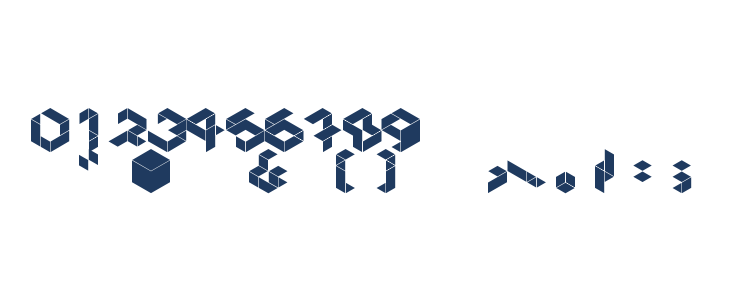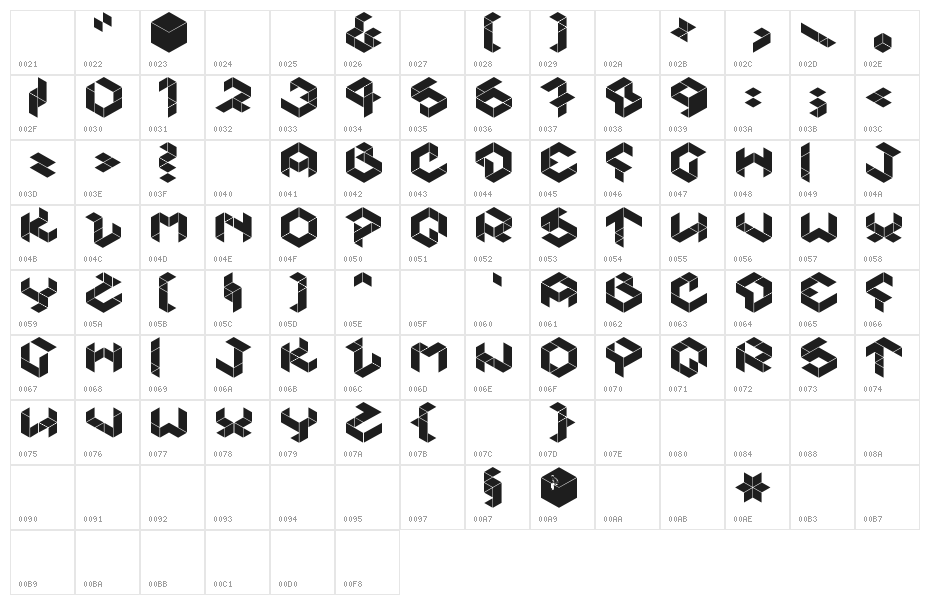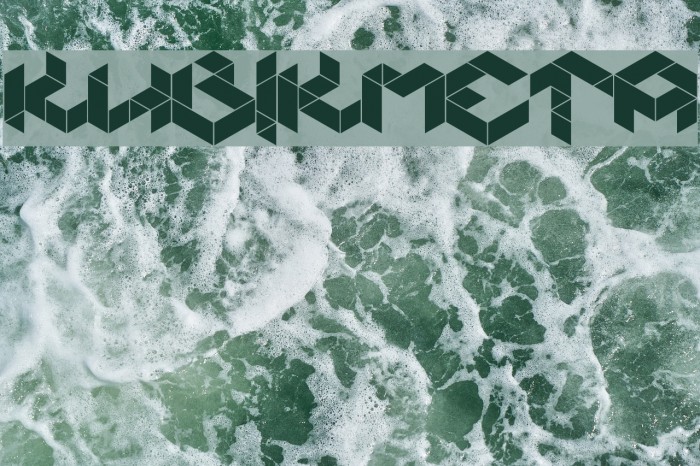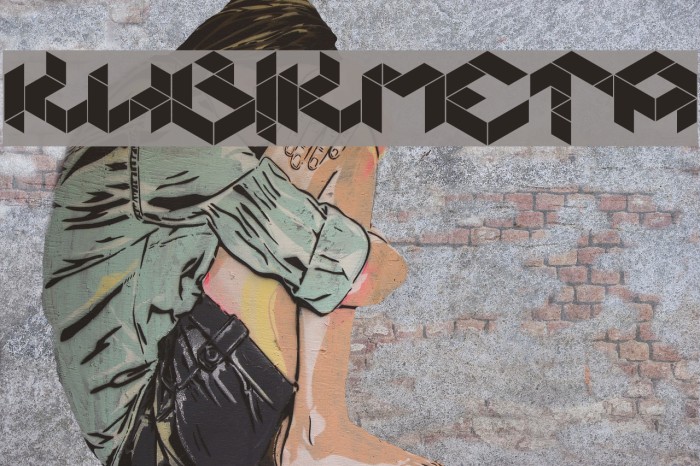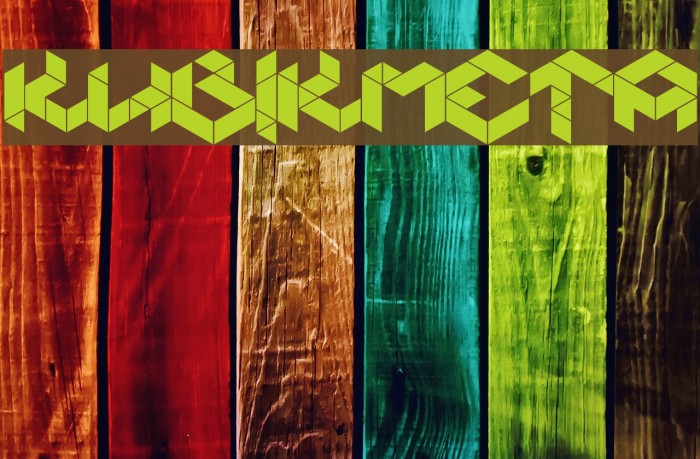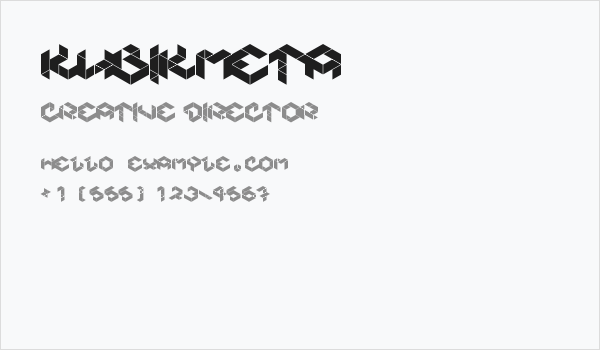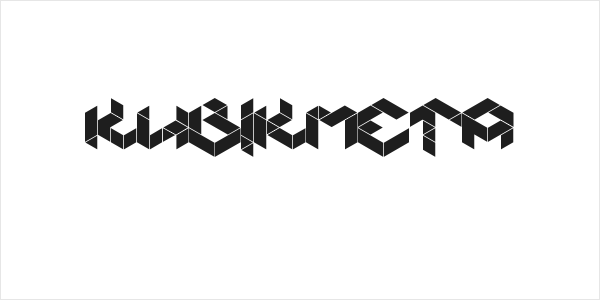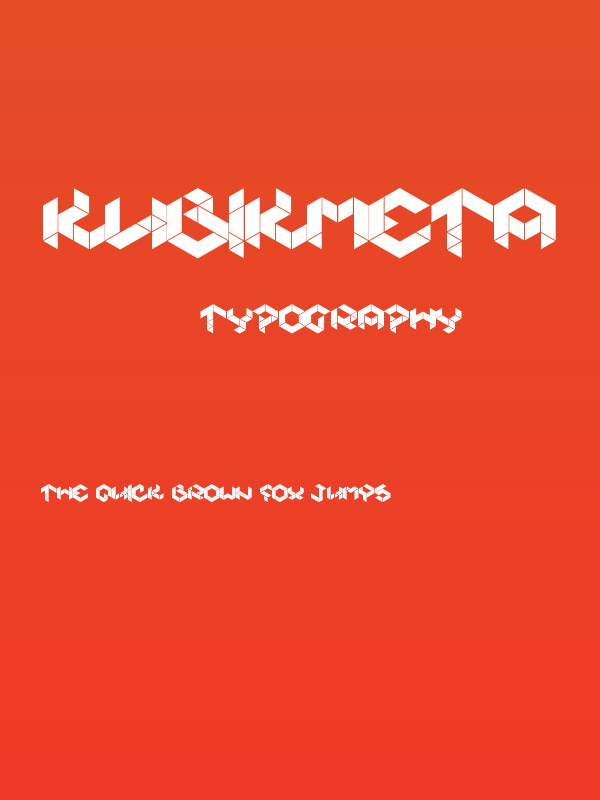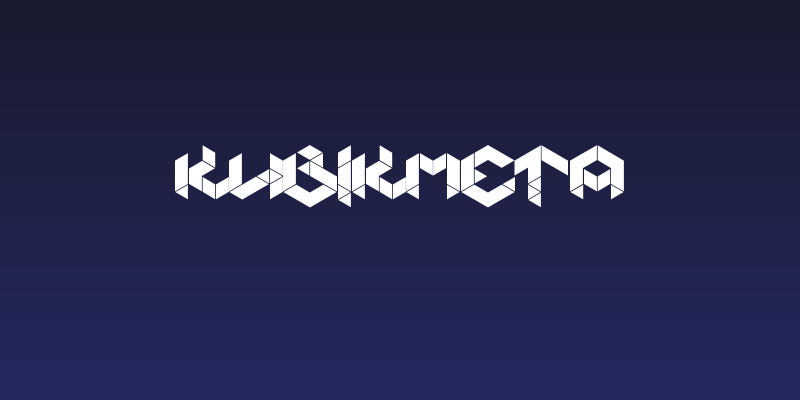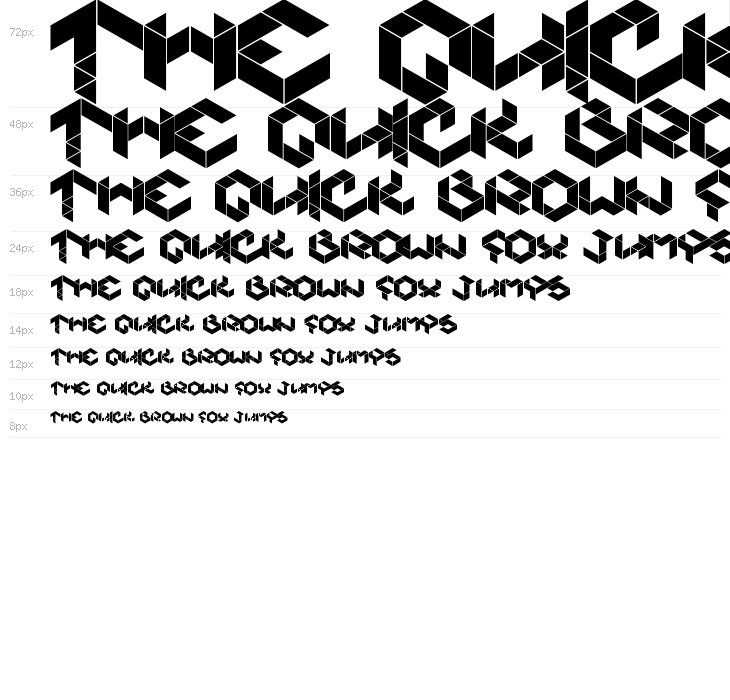
Kubikmeta Font
Kubikmeta Description
This font features a unique, geometric design with a three-dimensional cube-like appearance. Each character is constructed from a series of connected blocks, creating a bold and striking visual effect. The uppercase and lowercase letters maintain a consistent style, with sharp angles and a futuristic aesthetic. Numbers and special characters are designed with the same blocky structure, ensuring uniformity across all glyphs. The font's distinct style makes it ideal for projects that require a modern and edgy look.
| Proposed Projects | Ideal for futuristic branding, tech-related designs, video game titles, and modern posters. |